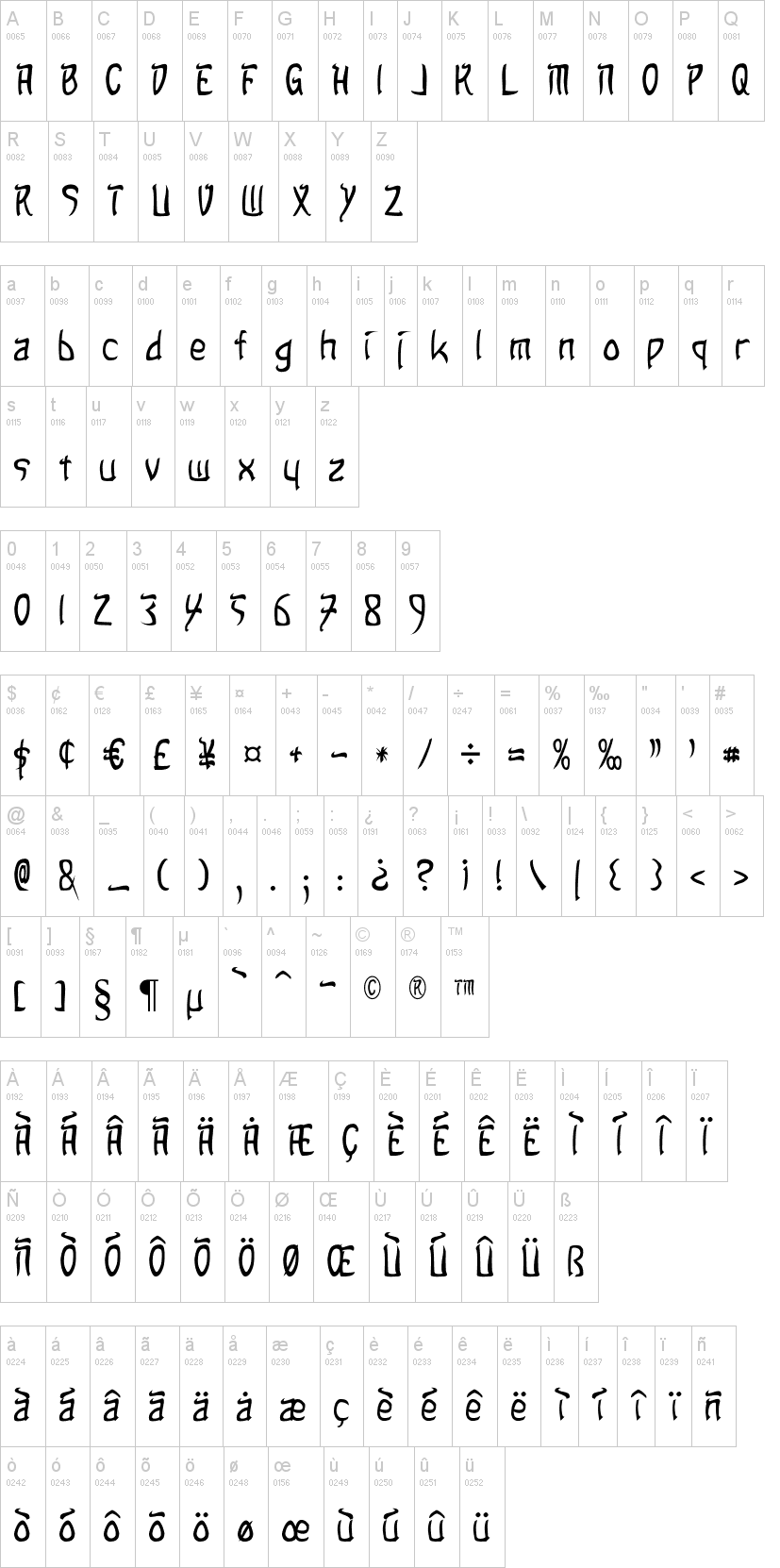
Taibaijan Italic.otfTaibaijan Bold.otfTaibaijan Bold Italic.otfNote of the authorThis Arabic-inspired typeface is a fantasy script I custom-created for a gaming campaign quite a number of years ago. Includes full alphabet, numerals, extended punctuation and Euro.